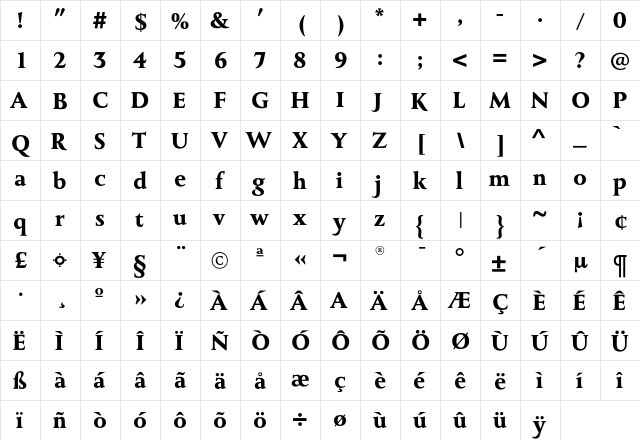
MonktonBold Regular
Design Context for MonktonBold Typeface
MonktonBold takes a measured approach to typography — its balanced proportions and neutral character make it a reliable workhorse for both digital and print work. The heavy weight commands attention and anchors typographic hierarchies.